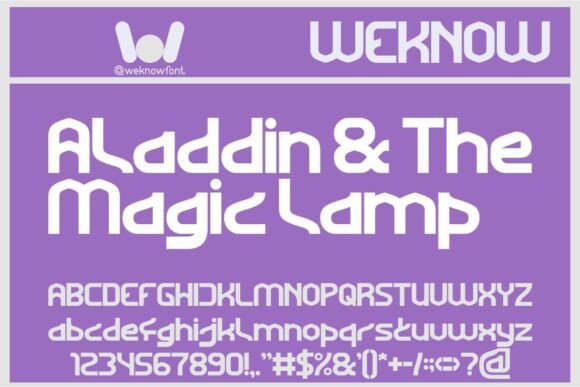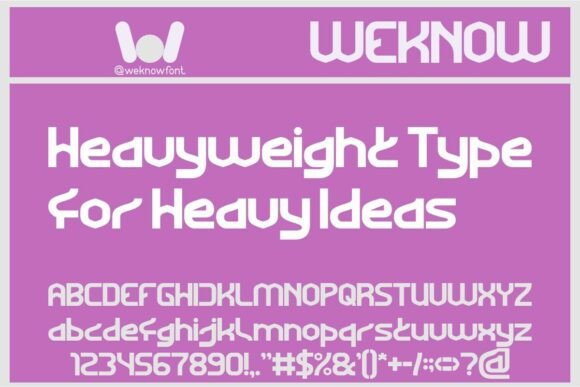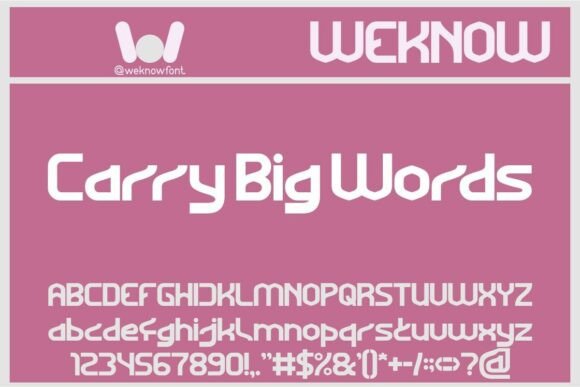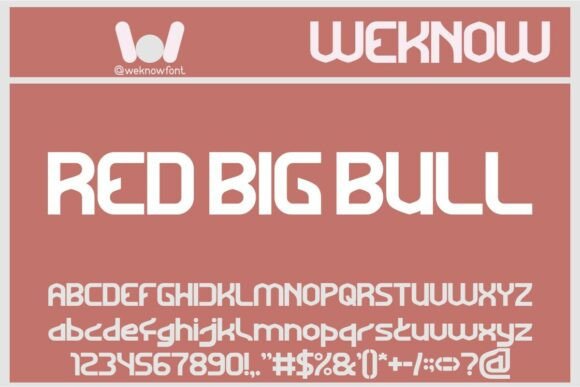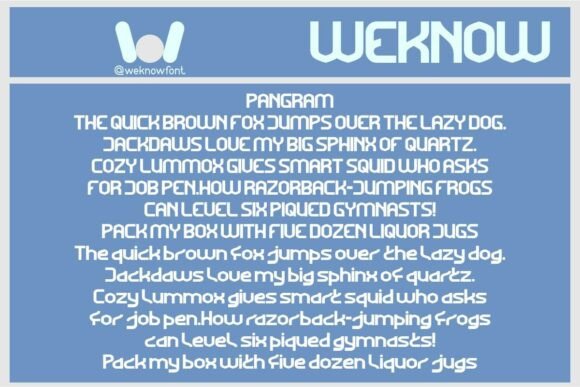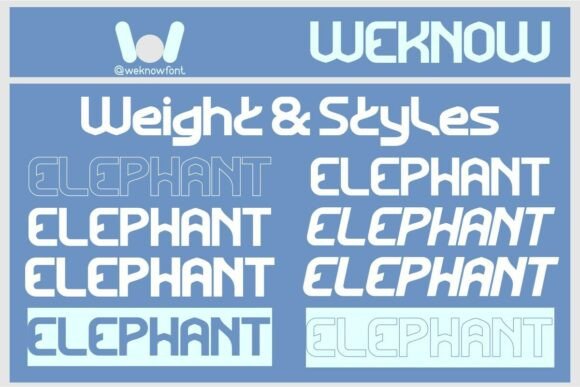
Unleash Your Creativity with Elephant Font: A Revolutionary Design Fusion
Are you ready to elevate your design game with a font that seamlessly blends modern lines and faux-Eastern aesthetics? Look no further than Elephant, a techno, sci-fi-inspired font that boasts a bold, geometric structure echoing the harmony between form and functionality. In this article, we’ll dive into the vibrant possibilities of design projects with Elephant, a versatile font that shines in various applications.
A Font that Commands Attention
Elephant’s unique fusion of modern and traditional elements makes it a stunning display font that commands attention. Its bold, geometric structure is perfect for setting the tone for a cutting-edge corporate logo, a captivating logotype, or stirring headlines. Whether you’re designing for a fashion brand, music label, or movie production company, Elephant helps you make a statement.
One of the standout features of Elephant is its versatility. This font can be used in a wide range of applications, from apparel and fashion labels to music, movies, games, magazines, books, comics, cartoons, and social platforms like YouTube and Instagram websites. Whether you’re a designer, craftsperson, or entrepreneur, Elephant provides the perfect opportunity to unleash your creativity and bring your brand to life.
Edgy Sophistication for Fashion Labels
Elephant brings an edgy sophistication to fashion labels, making it a gorgeous fit for the apparel industry. Its bold, geometric structure adds a touch of modernity to fashion designs, while its faux-Eastern aesthetics provide a unique and exotic flair. Whether you’re designing for a high-end fashion brand or a streetwear label, Elephant is the perfect font to elevate your brand’s visual identity.
Playful Elegance for Creative Projects
Elephant’s fancy display font style brings a playful elegance to creative projects. Whether you’re designing for music, movies, games, or social media platforms, this font adds a touch of whimsy and sophistication to your designs. With Elephant, you can create stunning visuals that capture the essence of your brand and leave a lasting impression on your audience.
Key Features of Elephant Font
- Bold, geometric structure: Elephant’s unique structure makes it a standout font that commands attention.
- Faux-Eastern aesthetics: This font’s exotic flair adds a touch of sophistication to designs.
- Versatility: Elephant can be used in a wide range of applications, from display fonts to logotypes and headlines.
- Edgy sophistication: This font brings a modern and exotic flair to fashion designs.
Design Possibilities with Elephant
With Elephant, the design possibilities are endless. Here are a few ideas to get you started:
- Logos and branding: Use Elephant as a logo font or incorporate it into your brand’s visual identity.
- Headlines and titles: Add a touch of sophistication to your headlines and titles with Elephant’s bold, geometric structure.
- Fashion designs: Bring an edgy sophistication to your fashion designs with Elephant’s faux-Eastern aesthetics.
- Social media graphics: Use Elephant to create stunning social media graphics that capture the essence of your brand.
In conclusion, Elephant Font is a revolutionary design fusion that elevates your flair for design. With its bold, geometric structure, faux-Eastern aesthetics, and versatility, Elephant is the perfect font for designers, craftspersons, and entrepreneurs looking to make a statement. Whether you’re designing for fashion, music, movies, or social media platforms, Elephant provides the perfect opportunity to unleash your creativity and bring your brand to life.